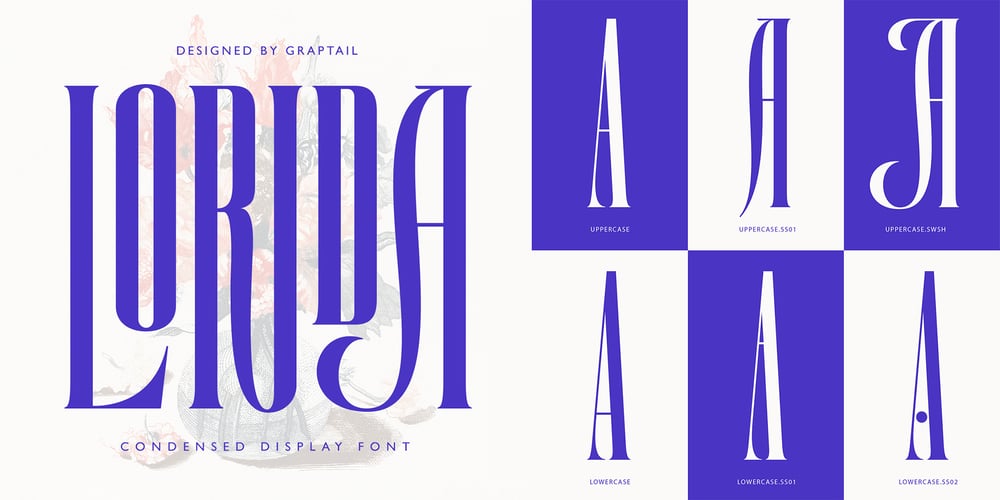
Lorida
Lorida font
Lorida Font Family was designed by Teuku Deky Firnanda and published by Graptail. Lorida contains 1 styles and family package options. Lorida – Condensed Display is an Elegant Condensed serif with eye-catching ligatures for each letter combination. it is based on a compact solid font, by combining various styles. Perfect for Logos, greeting cards, quotes, posters, branding, business cards, postcards, movie titles, blog headers, art quotes, typography, magazines and more.